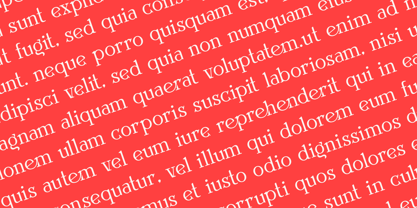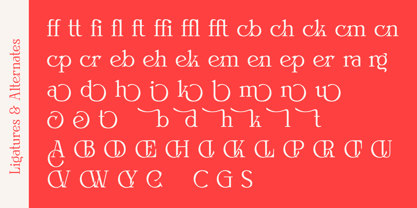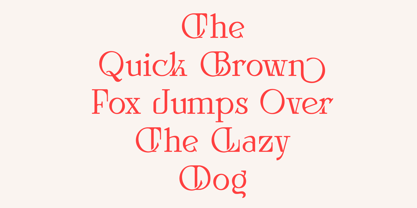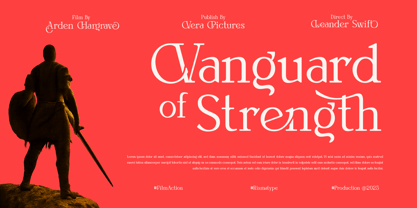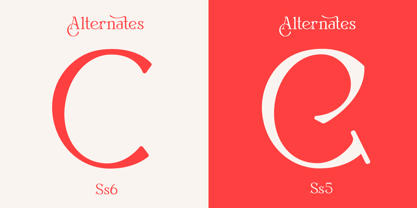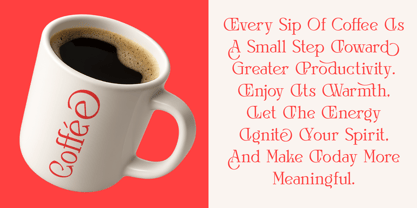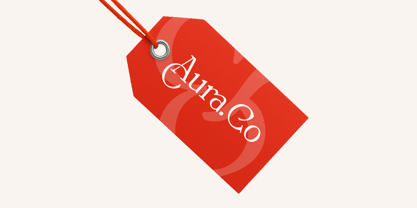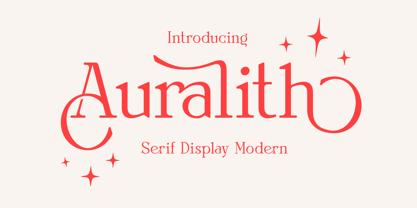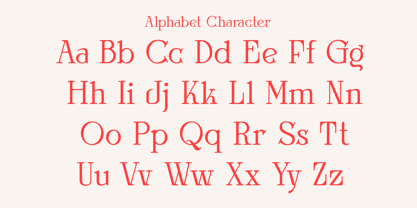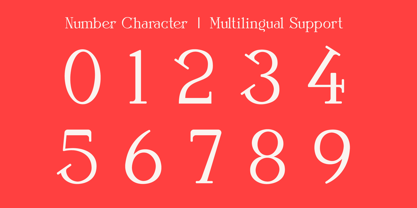
Auralith
by Risma Type
The Auralith Font Family was designed by Risma Mulyasari and published by Risma Type. Auralith contains 2 styles and family package options.
# 🔶 Auralith
Category: Modern Serif Display Typeface (Sleek Precision with Contemporary Elegance)
## 🌟 Where Contemporary Elegance Meets Bold Design
Looking for a typeface that captures modern sophistication with sleek precision?
Introducing Auralith, a modern serif display typeface designed for clean, confident expression. With sharp serifs, balanced proportions, and a touch of refinement, Auralith is perfect for a wide range of designs — from premium branding to cutting-edge editorial work.
## 🔑 Key Features
* ✒️ Crisp serifs with smooth curves for a dynamic yet refined look
* 🎯 Balanced and modern proportions for a confident and approachable style
* 🔤 Custom alternates, ligatures, and stylistic sets for flexibility
* 🌍 Multilingual support (Latin Extended + smart accents)
* 🖥️ Crafted for high-resolution displays in both print and digital media
## 💼 Perfect For
* 🗞️ Editorial design & modern magazine layouts
* 🛍️ High-end branding, packaging, and visual identity
* 🖋️ Personal branding and creative identity
* 📚 Book covers & premium publishing projects
* 📲 Stylish digital content, social media, and promotional graphics
> Auralith blends sleek precision with contemporary elegance, designed to elevate your projects with sophistication and bold clarity.